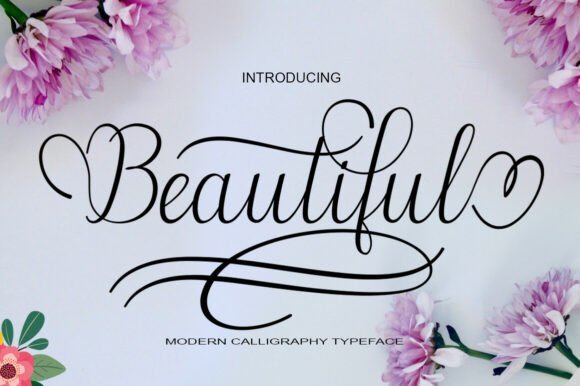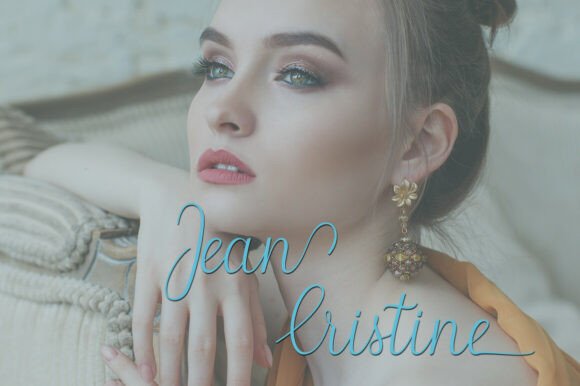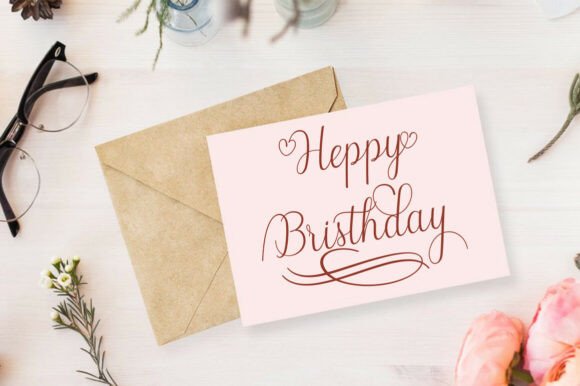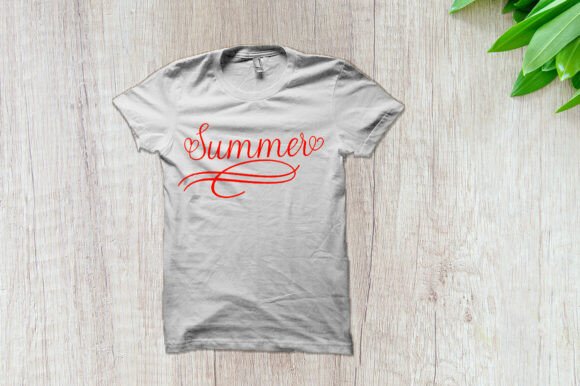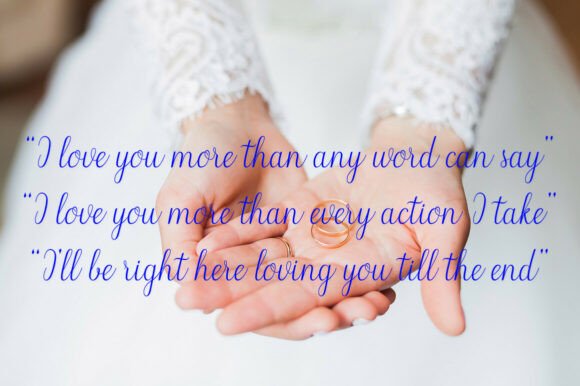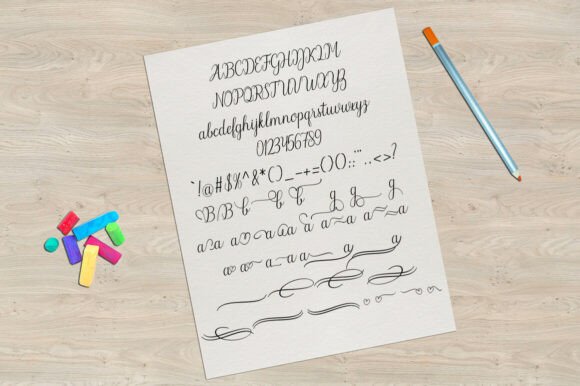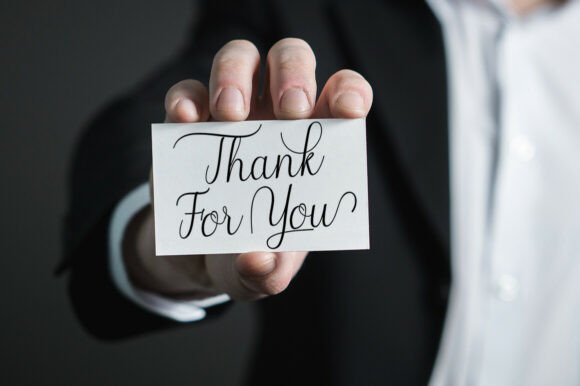
The Art of Beautiful Typography: Discovering the Magic of Beautiful Font
Have you ever been brainstorming a creative project, and suddenly, a spark of inspiration hits you? Maybe it’s a client’s request for a custom invitation, or a personal project that requires a unique touch. Whatever it is, the key to bringing your vision to life often lies in the perfect font. That’s where Beautiful Font comes in – a stunning, modern script font designed to elevate your designs and leave a lasting impression.
With its 883 glyphs, Beautiful Font is a versatile tool for designers, offering a wide range of possibilities for crafting beautiful invitations, greeting cards, branding materials, and more. Its Open Type features, such as Swash, Stylistic Sets, and Contextual Alternate, make it easy to access alternate characters and add a touch of elegance to your designs. Whether you’re a seasoned pro or just starting out, Beautiful Font is a valuable addition to your creative toolkit.
Beautiful Font Key Features
- Unique Characteristics: The font features elegant, flowing lines and a classic feel, making it ideal for use in formal and professional settings.
- Kerning and Ligatures: The font includes advanced kerning and ligature pairs, ensuring that text sets up smoothly and aesthetically pleasing.
Beautiful Font Review
I’ve had the chance to work with the Beautiful Font on a few projects, and I must say it’s a great addition to any designer’s toolkit. ✨ The font’s clean and elegant design makes it perfect for creating visually appealing headlines and titles. The font’s versatility allows it to work well in a variety of contexts, from modern websites to classic print materials.
- ✨ Great for creating headlines and titles
- ✨ Versatile and works well in various contexts
- ✨ Clean and elegant design
- ⚠️ May not be the best choice for body text due to its relatively small character set
- ⚠️ Can be difficult to read at very small font sizes
- ⚠️ Limited language support
Overall, I think the Beautiful Font is a great choice for designers who want to add a touch of elegance to their projects. While it may not be the perfect font for every situation, it’s definitely worth considering for its versatility and visual appeal.
Tips: Use Beautiful Font to create eye-catching headings, and pair it with a clean sans-serif font for body text.
Tips: Use Beautiful Font to create custom typography for your brand, and experiment with different font sizes and styles to add visual interest.
Tips: Use Beautiful Font to create visually appealing titles and headings, and pair it with a clear and readable font for body text.
Beautiful Font is perfect for:
- Creating eye-catching headings and titles
- Designing custom typography for brands
- Adding visual interest to presentations and documents